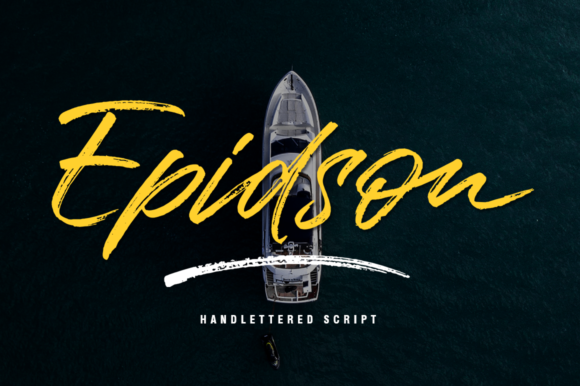
Epidson Font
Introducing Epidson Font, the captivating brush script that adds a touch of untamed elegance to your designs. Crafted by the renowned Lettersams, this masterpiece captures the raw energy of a swift brushstroke, effortlessly evoking the beauty of handwritten artistry.
Unleash the power of Epidson to transform your creations into works of art. Its clean lines and dynamic movement lend an air of sophistication to logos, adding a touch of individuality to your brand identity. Let your words dance across the page with the grace of brush lettering, creating invitations and cards that leave a lasting impression.
With Epidson as your ally, your product packaging will stand out from the crowd, captivating the attention of discerning customers. Its versatility knows no bounds, seamlessly adapting to letterheads, posters, and clothing designs. Adorn your designs with intricate labels, imbuing them with a touch of handwritten charm.
Epidson is not merely a font; it's a gateway to creativity, inviting you to explore the limitless possibilities of visual storytelling. Its unique character adds a layer of depth and emotion to your designs, making them truly unforgettable. Whether you're a seasoned designer or just starting to dabble in the art of typography, Epidson will ignite your imagination and elevate your creations to new heights.
Immerse yourself in the world of Epidson Font, where the allure of hand-lettered elegance meets the boundless possibilities of digital design. Download Epidson today and embark on a journey of creativity that will captivate your audience and leave an indelible mark on their hearts.